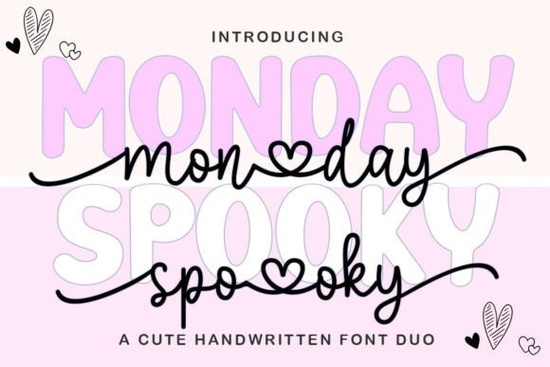
Monday Spooky Script Font is a delightful pairing of two distinct yet complementary styles that bring a sense of fun and personality to any design project. Whether you're creating greeting cards, social media graphics, or branding materials, this font duo offers a fresh and appealing look that stands out without being overwhelming.
The bold version of the font, MONDAY & SPOOKY, features soft, rounded letters with pastel tones, making it ideal for headlines and eye-catching text. Its playful nature makes it perfect for designs aimed at children or those with a whimsical vibe. The script style, monday & spooky, adds an elegant touch with its flowing cursive form and unique heart details replacing certain letters like “o” and “d.” This makes it great for personal and feminine projects, such as invitations, planners, or stickers.
This font duo is especially useful for designers looking to add a touch of cuteness and warmth to their work. It’s well-suited for kids’ party invitations, cute branding, and social media content that needs a friendly and approachable feel. The PUA encoding ensures that all glyphs, swashes, and alternate characters are easily accessible, allowing for greater customization and creativity.
Why Choose Monday Spooky Script Font?
One of the main advantages of Monday Spooky is its versatility. The combination of a bold sans serif and a delicate script gives designers the flexibility to use both styles in different parts of a design. For example, the bold font can be used for headings, while the script font works well for subheadings or body text. This makes it a valuable addition to any designer’s toolkit.
Another benefit is the font’s ease of use. Since it’s PUA-encoded, there’s no need to worry about missing characters or complicated installation processes. This means you can start using it right away without technical hurdles. The font also includes a range of alternate characters, which allows for more creative expression and helps prevent repetitive design patterns.
Best Uses for Monday Spooky Script Font
Monday Spooky is particularly effective for projects that require a warm, inviting tone. Greeting cards, for instance, can benefit from the font’s playful and heartfelt appearance. It also works well for kids’ party invitations, where a friendly and engaging look is essential.
Cute branding and packaging are another area where this font shines. Whether you're designing a logo for a boutique or creating packaging for a small business, the font adds a charming and memorable touch. Social media content, such as Instagram posts or Facebook banners, can also take advantage of the font’s visual appeal to stand out in a crowded space.
For those who enjoy creating custom stickers or planners, Monday Spooky provides the perfect balance of style and readability. Its combination of bold and script elements allows for dynamic layouts that are both functional and aesthetically pleasing.
Whether you’re a designer, crafter, print-on-demand seller, or small business owner, Monday Spooky Script Font is a versatile and appealing choice. Its blend of bold and script styles makes it suitable for a variety of projects, and its easy-to-use format ensures a smooth design experience.
Consider adding this font to your collection if you're looking for a fresh and fun way to express your creativity. With its unique combination of styles and practical features, it’s a great asset for any design project that needs a touch of charm and personality.